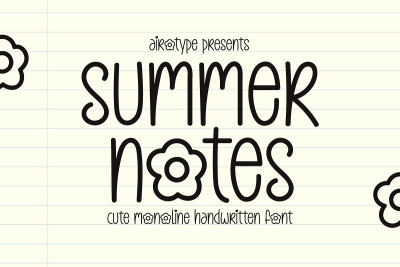
Summer Notes - Simple Handwritten Font
Summer Notes - Simple Handwritten combines clean construction with expressive detail, making it a dependable asset in any type toolkit.